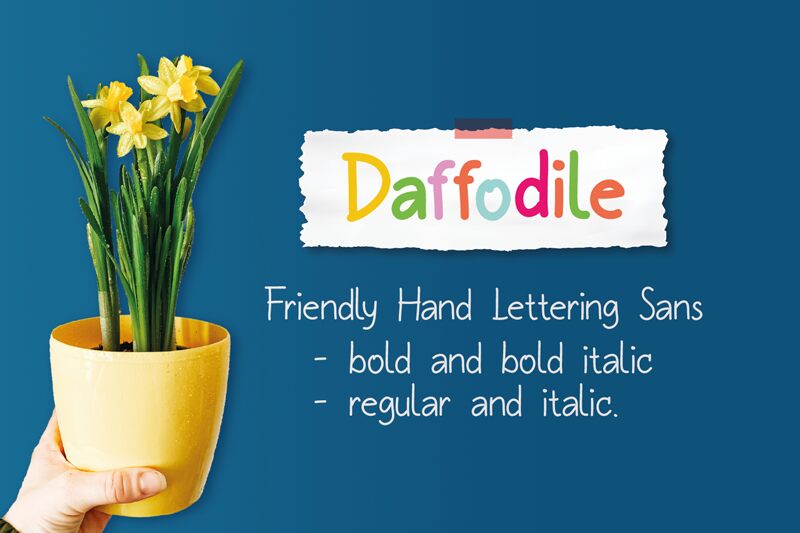
Daffodile Regular
Daffodile is a simple and friendly handwritten font. It maintains its classy calligraphic influences while feeling contemporary and fresh. This versatility will appeal to a wide range of crafty ideas, from letterheads and titles, to stationery.